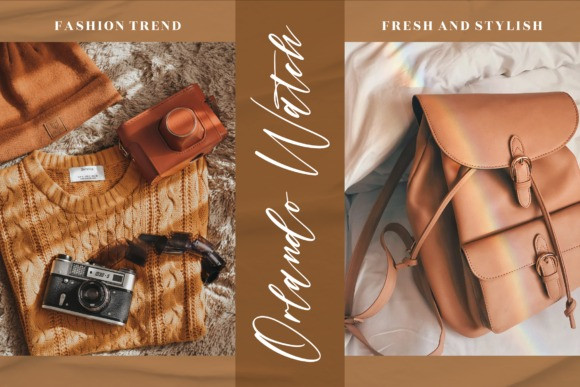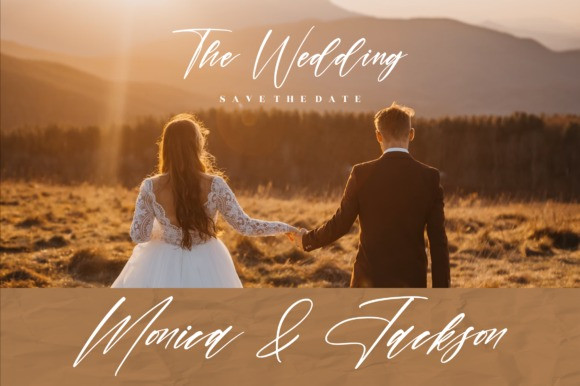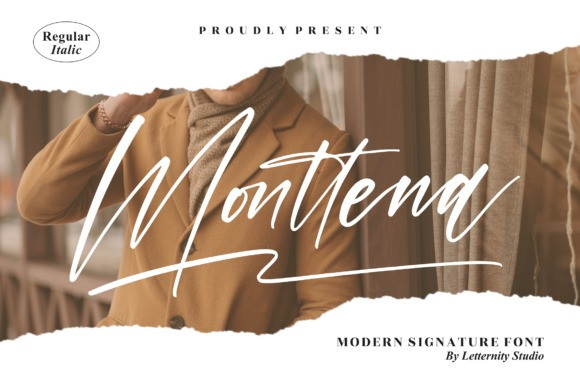
Monttena Script Font
Monttena Script Font is a beautiful script font. It is suitable for a variety of projects such as: logos, branding projects, homeware designs, product packaging, mugs, quotes, and a variety of other lovely projects that need an ageless taste.